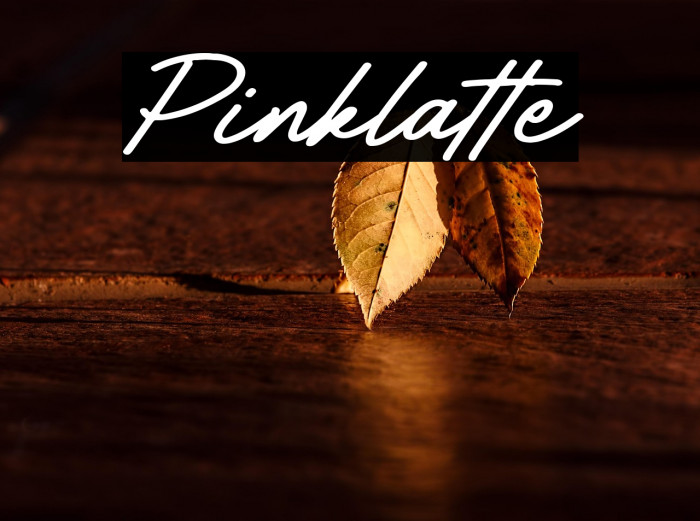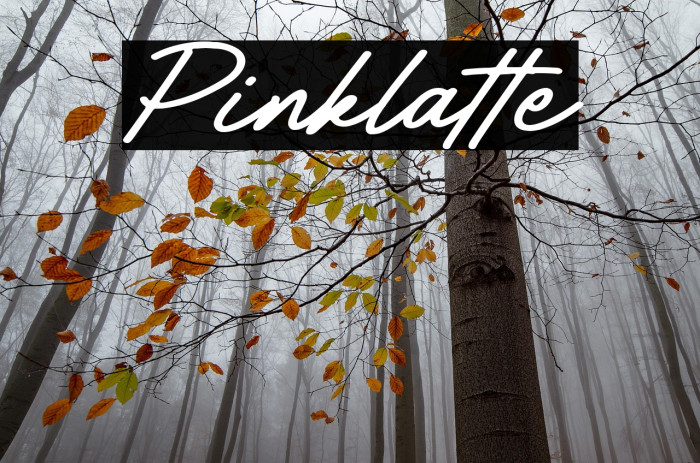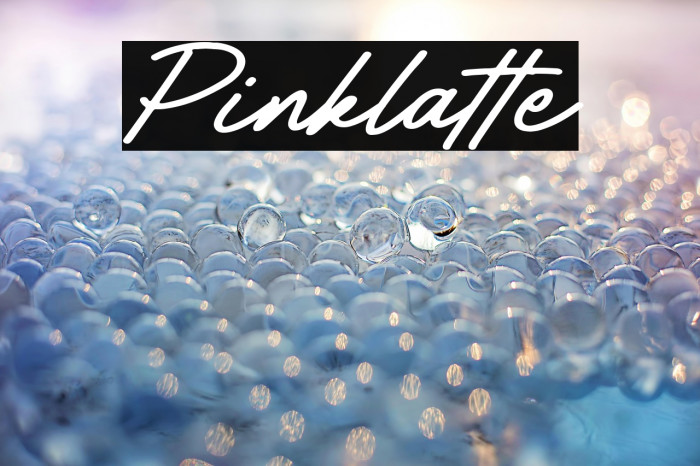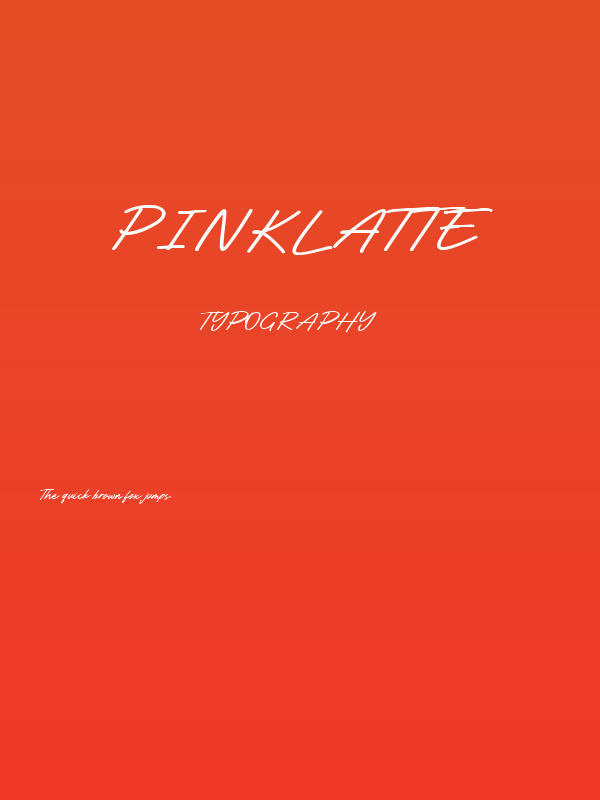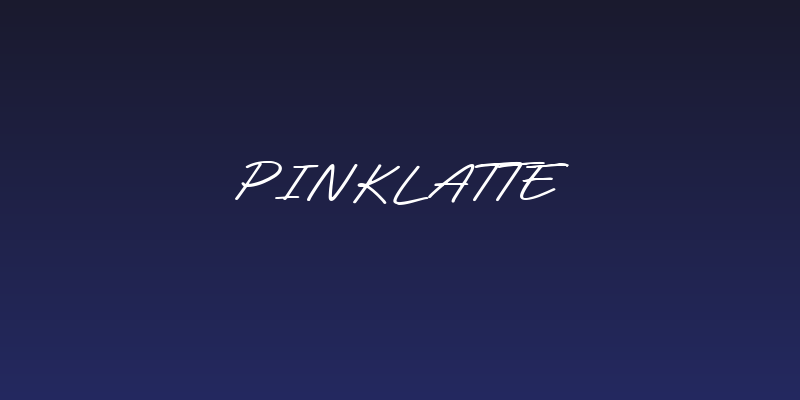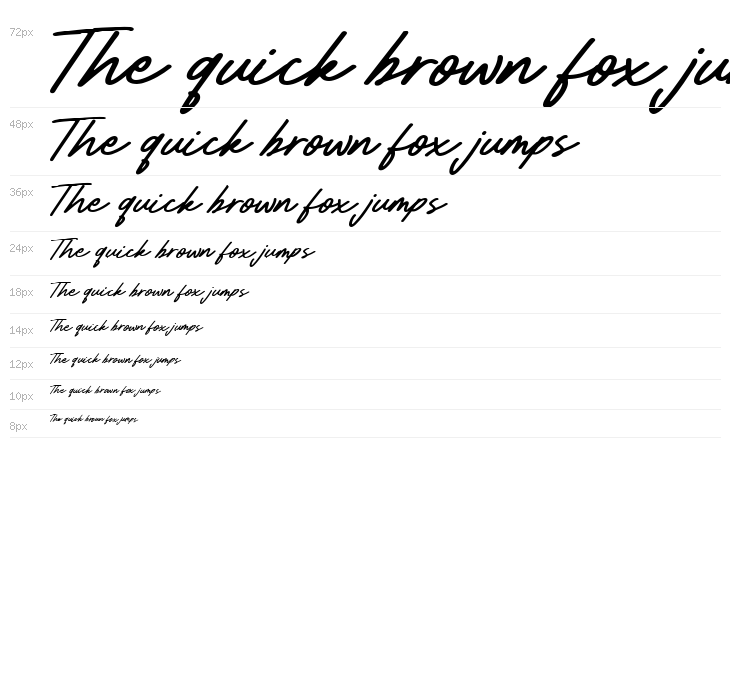
Pinklatte Font
Pinklatte Description
This font exudes a casual and friendly handwritten style, characterized by its flowing, cursive script. The uppercase letters are elegantly slanted, giving a sense of movement and fluidity, while the lowercase letters maintain a consistent rhythm with smooth curves and rounded edges. The numerals are clear and easy to read, complementing the overall aesthetic. Special characters are integrated seamlessly, maintaining the font's cohesive look. This font is perfect for projects that require a personal touch, such as invitations, greeting cards, or branding materials that aim to convey warmth and approachability.
| Proposed Projects | Ideal for invitations, greeting cards, personal branding, and any project needing a warm, personal touch. |